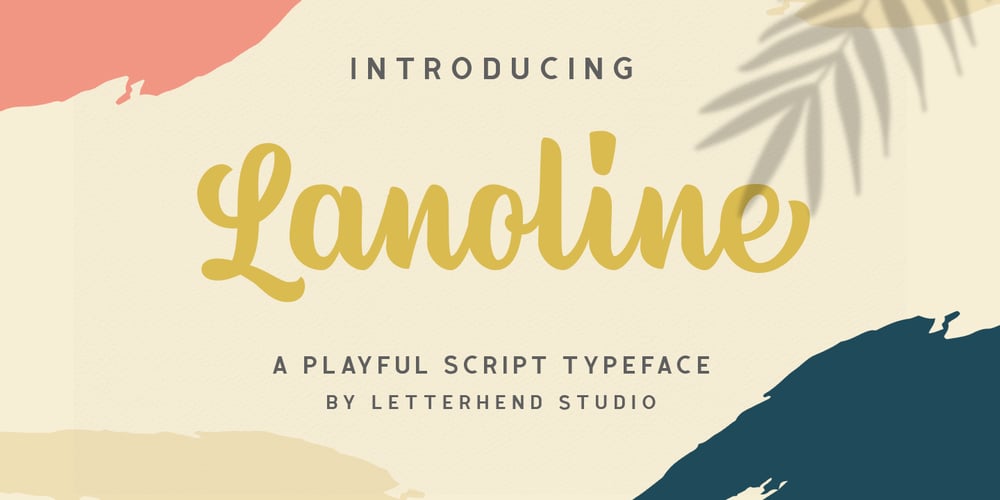
Lanoline Script
Lanoline Script font
Lanoline Script Font Family was designed by Hendry Juanda and published by Letterhend. Lanoline Script contains 1 styles and family package options. Please meet Lanoline, a playful script typeface. As you can see, this typeface has a casual look yet still looks bold and stands out from the crowd. The swashes make the font looks even more unique. You can play around and mix and match the swashes, combining into a great logotype! Lanoline works perfect for you who needs a typeface for headline, logotype, apparel, invitation, branding, packaging, advertising and more. This typeface comes in uppercase, lowercase, with punctuation, symbols, numerals, stylistic set alternate, ligatures, and also support multilingual.